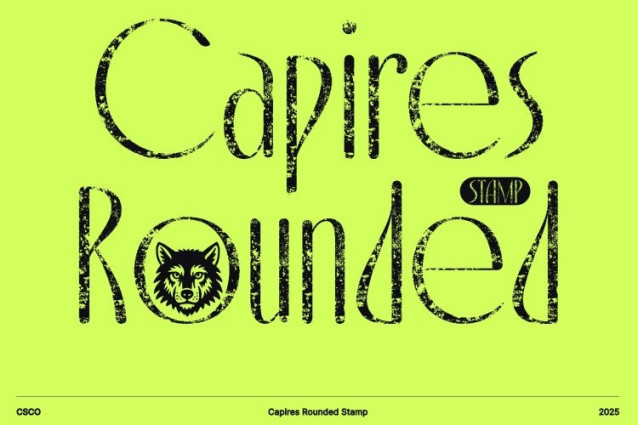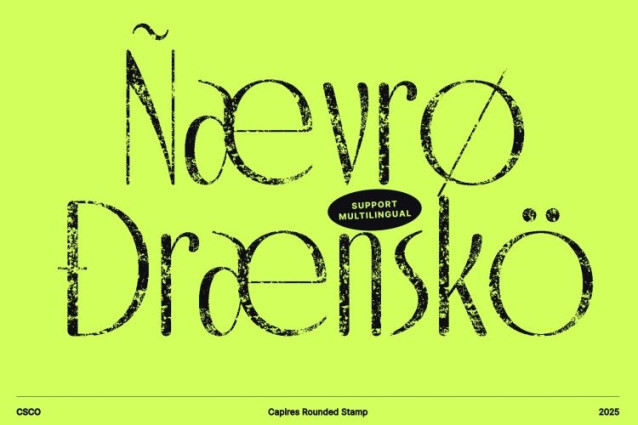
Capires Rounded Stamp Font
Capires Rounded Stamp Font This is a sophisticated Art Deco-inspired typeface that brings timeless elegance into modern design. Its slim, condensed structure and clean geometric lines create a refined visual presence that instantly elevates any layout. Built around stylish uppercase forms, the font captures the spirit of classic Art Deco architecture, making it ideal for designers seeking a typeface that feels both historical and luxurious.
Stamp Texture for Artistic Vintage Expression
What sets this font apart is its expressive stamp texture. This handcrafted effect introduces warmth, personality, and a vintage mood that contrasts beautifully with the clean Art Deco shapes. The textured details create a sense of depth and authenticity, adding an artistic, slightly rugged feel to the refined letterforms.
Perfect for Luxury Branding and Decorative Themes
This font works exceptionally well in luxury branding, high-end packaging, event invitations, editorial layouts, posters, and decorative themes. Its slim proportions and geometric precision bring sophistication, while the stamped texture adds uniqueness and emotional depth, ensuring your design stands out with memorable character.
A Distinctive Blend of Refinement and Creativity
By combining the precision of Art Deco styling with a handcrafted stamp effect, this font offers a rare balance of refinement and artistic flair. It is a typeface crafted for designers who want to communicate style, heritage, and creativity all at once.